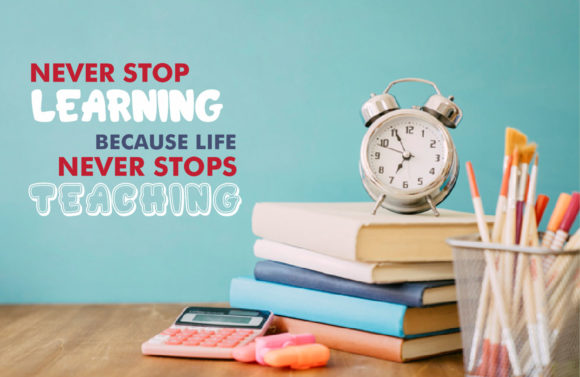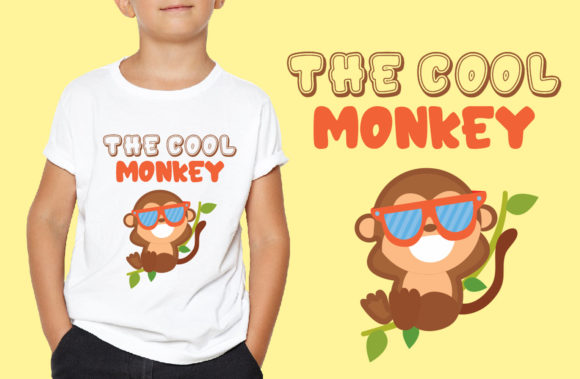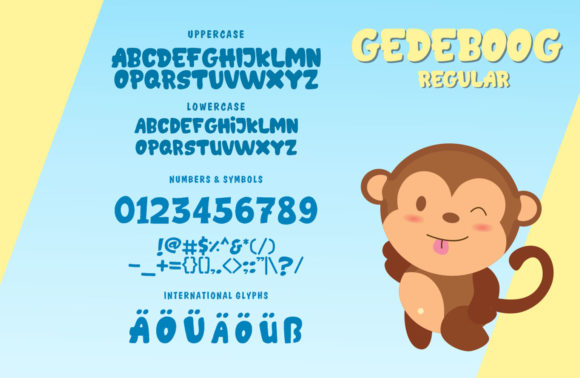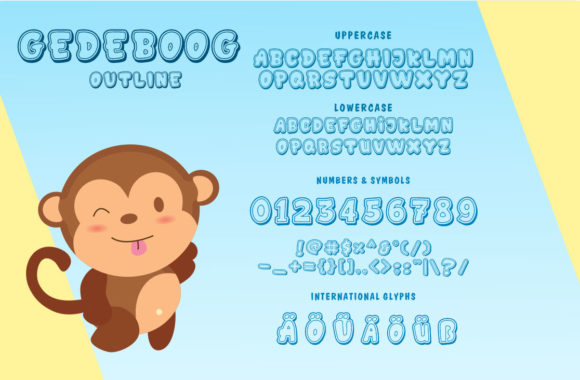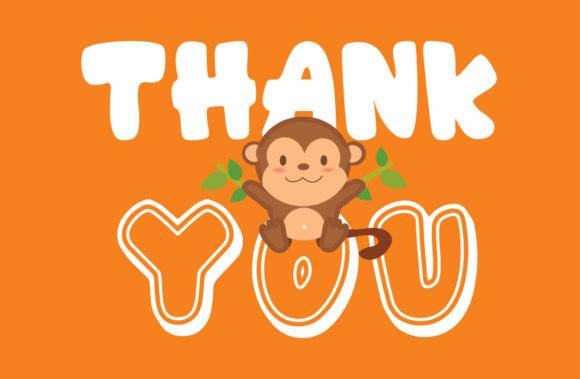
Discover the Delightful Gedeboog Font: Elevate Your Designs with a Touch of Whimsy
In the vast universe of typography, there exist fonts that not only serve as a means of communication but also as a way to add personality and flair to designs. Among these, the Gedeboog Font stands out as a beacon of creativity and fun. This charming font is designed to infuse your projects with a playful yet sophisticated vibe, making it an excellent choice for designers and crafters looking to add a unique touch to their work.
The Essence of Gedeboog Font
The Gedeboog Font is a fun, yet fancy font that comes in two amazing styles. These styles are crafted to complement each other perfectly, offering versatility and a wide range of creative possibilities. Whether you’re working on a whimsical project or aiming to add a dash of elegance, Gedeboog has got you covered.
One of the key advantages of the Gedeboog Font is its incredible versatility. It’s perfect for a myriad of design projects, including:
- T-shirts: Add a playful or sophisticated quote, slogan, or message to your apparel designs.
- Quotes: Create visually stunning quote graphics for social media, blogs, or wall decor.
- Posters: Design eye-catching posters for events, promotions, or informational purposes.
- Logos: Use Gedeboog to craft unique and memorable logos for brands looking for a distinctive identity.
- Magazine Covers: Stand out with a captivating font that draws readers in.
- Large-scale Artwork: Perfect for murals, billboards, and other large-format designs where impact is key.
Why Choose Gedeboog Font?
Choosing the right font for your design project can be daunting, but here are a few reasons why Gedeboog should be at the top of your list:
- Uniqueness: Gedeboog offers a fresh and unique aesthetic that’s hard to find elsewhere.
- Legibility: Despite its decorative nature, Gedeboog maintains excellent legibility, making it suitable for both short phrases and longer texts.
- Customization: With two styles to choose from, you can mix and match to create dynamic and visually appealing designs.
- Fun and Playfulness: It adds a touch of whimsy and playfulness, perfect for projects aimed at a younger audience or those looking to convey a light-hearted message.
Tips for Using Gedeboog Font Effectively
To get the most out of the Gedeboog Font, consider the following tips:
- Mix and Match: Don’t be afraid to combine both styles of Gedeboog to create visual interest and hierarchy in your designs.
- Contrast is Key: Use contrasting colors or sizes to make your text stand out.
- Keep it Simple: While Gedeboog is decorative, too much complexity can overwhelm. Balance it with simpler elements.
| Font Name | Gedeboog Font |
| Author | fachranheit |
The Gedeboog Font is a delightful addition to any designer’s toolkit. Its unique blend of fun and sophistication makes it perfect for a wide range of projects. Whether you’re a professional designer or a crafter looking to add a personal touch to your creations, Gedeboog is sure to inspire and elevate your designs. So, why settle for ordinary when you can make your designs extraordinary with the Gedeboog Font?
Embark on a creative journey with Gedeboog and discover how this charming font can transform your designs into captivating works of art.